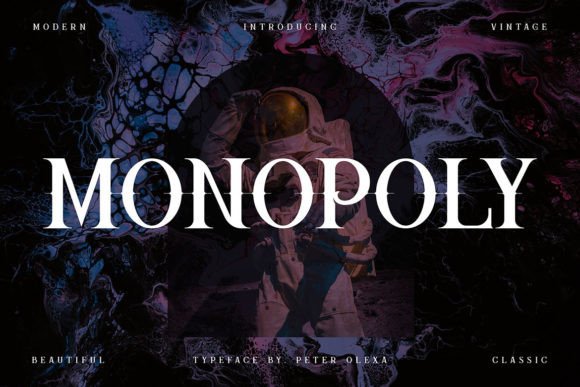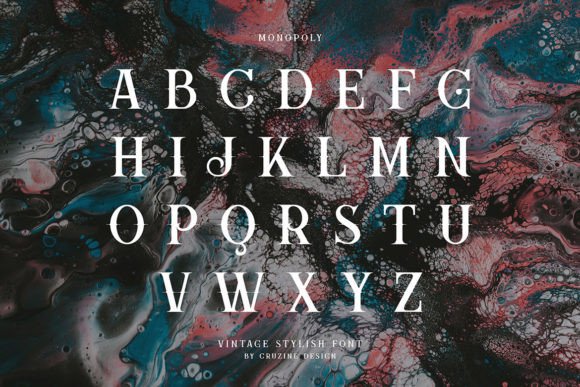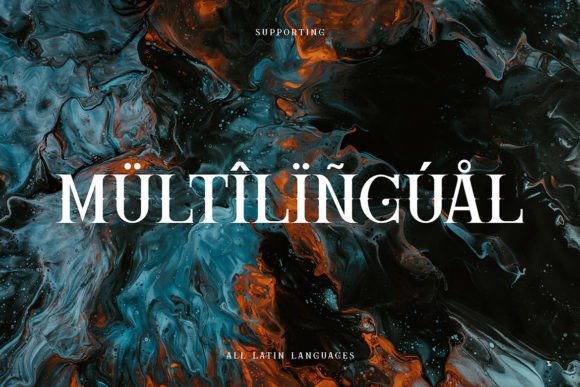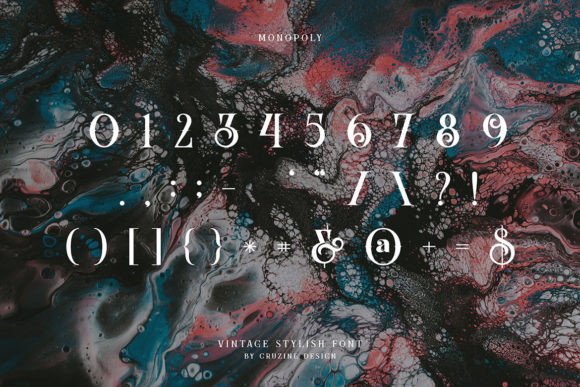
Monopoly Font: A Bold Serif for Retro Branding & Logo Design
About the Monopoly Font
The wait is over! The incredible Monopoly Font is now available for your design toolkit. Monopoly is a stylish serif font that is distinctive and retro. With its bold and sharp lines, it is sure to add a classic and sophisticated touch to any design. Its unique style stands out from the crowd, making it perfect for logos, headlines, and other creative projects.
Monopoly’s bold serifs make it ideal for headlines, logos, and short impactful statements in branding materials and posters. Its retro style works well for projects with a vintage or classic feel, but its strong presence isn’t suited to body text or UI elements requiring high readability.
The font’s inherent boldness pairs well with clean, minimalist sans-serif fonts like Helvetica or Open Sans for a balanced contrast. For a more playful effect, consider pairing it with a rounded sans-serif or a subtly textured script font. Avoid pairing it with other highly decorative or ornate fonts to maintain visual clarity.
Monopoly projects a confident, sophisticated, and slightly nostalgic personality. Brands aiming for a classic yet assertive image, perhaps in the fields of finance, entertainment, or luxury goods, will find it a strong visual asset.